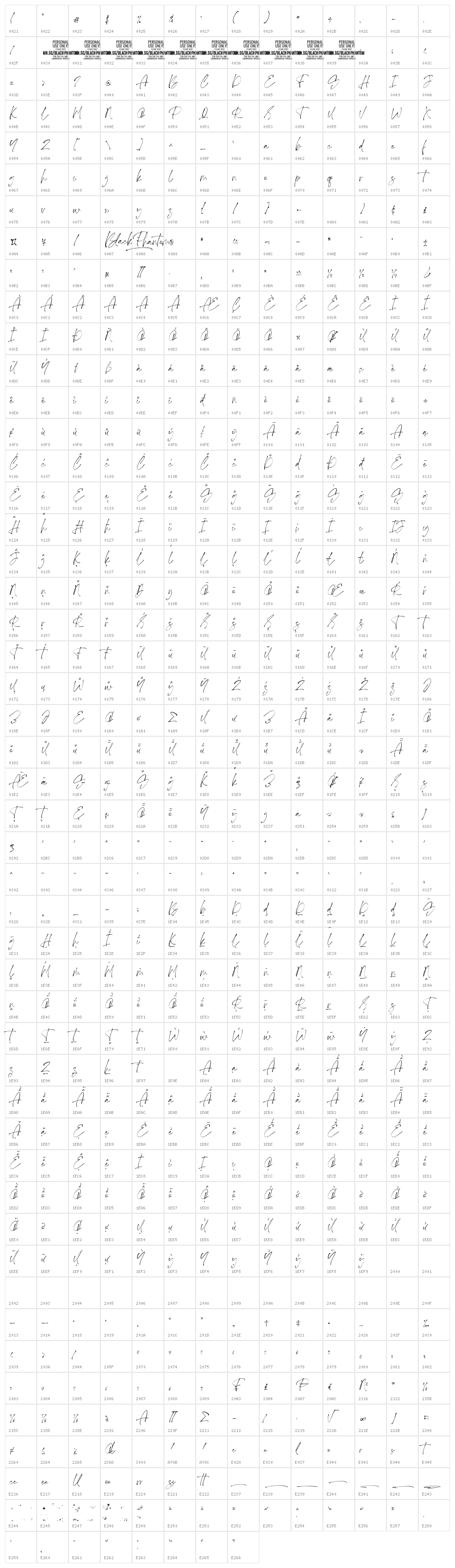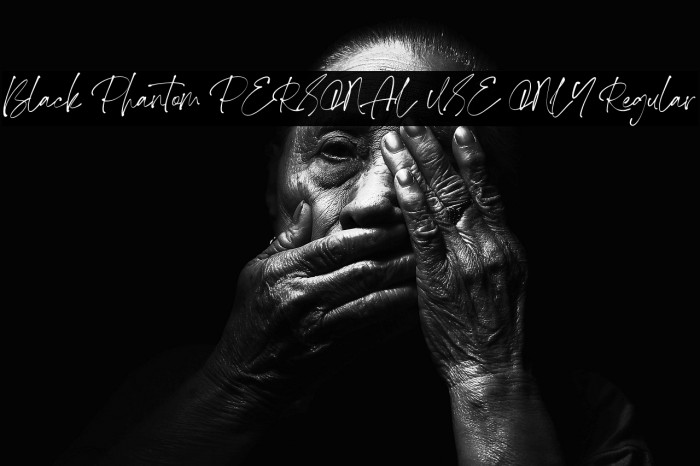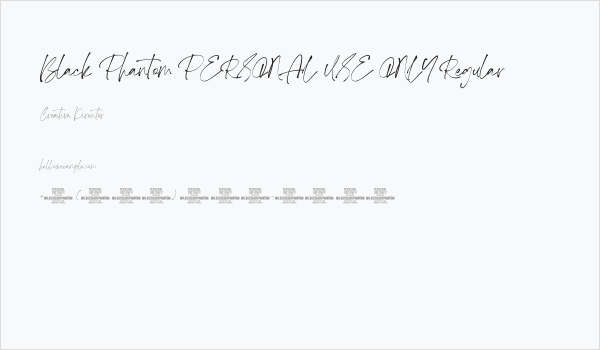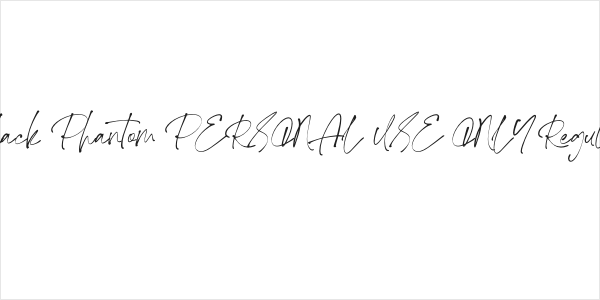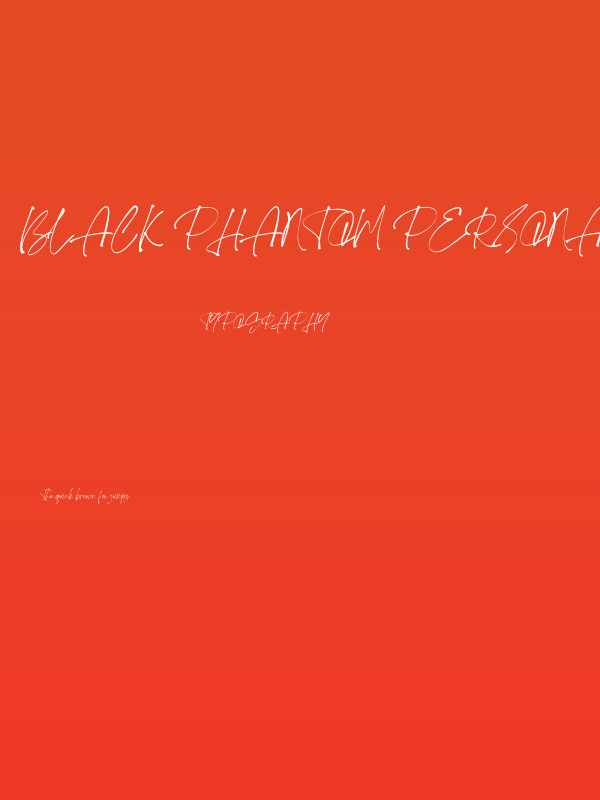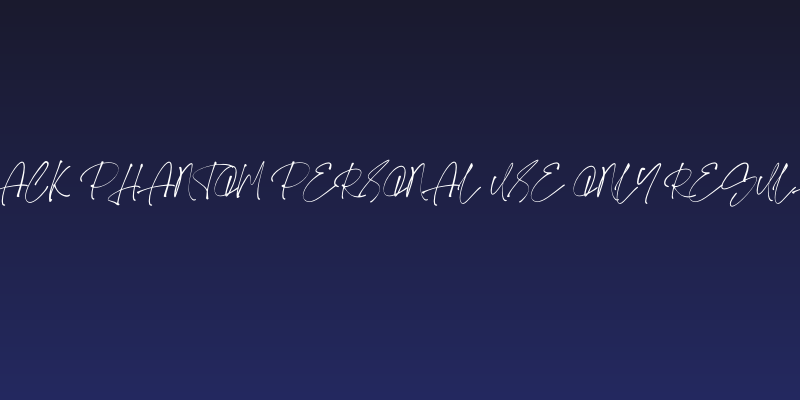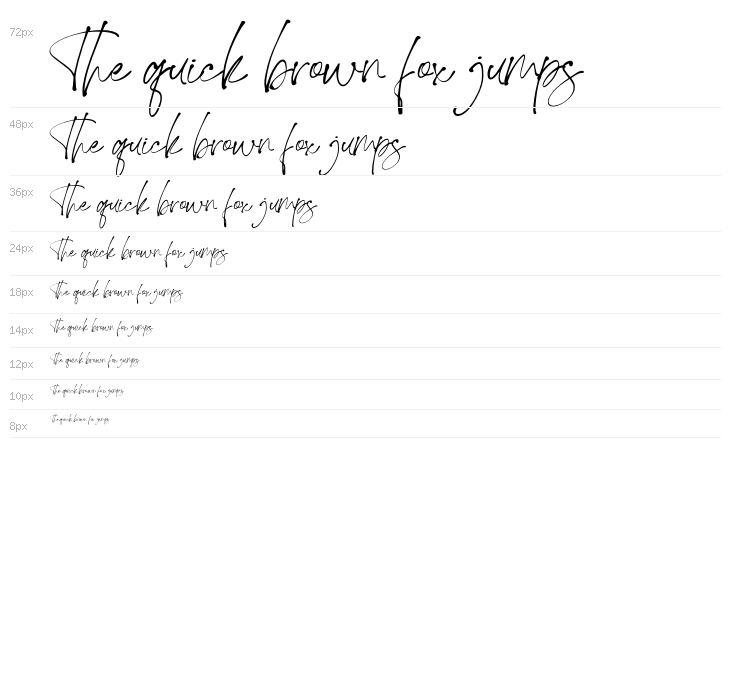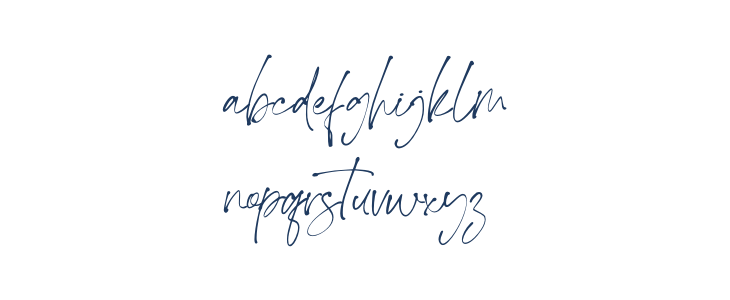
Black Phantom PERSONAL USE ONLY Regular Font
Black Phantom PERSONAL USE ONLY Regular Description
This font features a dynamic and expressive handwritten style, characterized by its fluid strokes and elegant curves. The uppercase letters are bold and sweeping, with a sense of movement that suggests a personal touch. Lowercase letters maintain the same fluidity, with some letters extending below the baseline, adding to the font's artistic flair. The numerals are consistent with the overall style, offering a cohesive look. Special characters are creatively integrated, maintaining the handwritten aesthetic. This font is perfect for projects that require a personal, artistic touch.